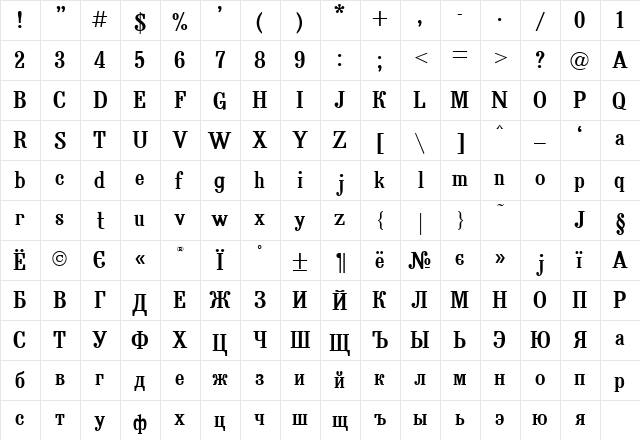
BruskovayaC Normal
Design Context for BruskovayaC Typeface
BruskovayaC offers clean, dependable letterforms without strong stylistic allegiance, making it a practical choice for designers who need flexibility.